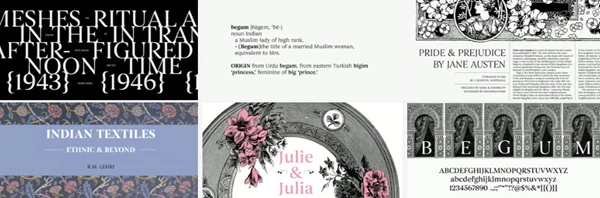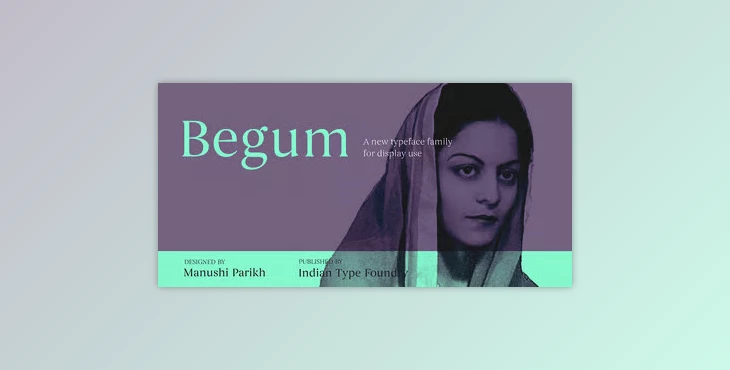
The Begum Font Family is a Latin display serif that has a modern appeal, but one that very much embraces old-school Anglo-Dutch typefaces. It looks great and reminds me of Caslon, Fleischmann, and Times, among many others. Use the font family for anything where you want to enhance shorter text pieces, like a multi-line intro for an article or a product box and label, as this family will stand out with its unique differences.
In addition, the font family supports Devanagari and Tamil, making it an excellent choice for Latin-based font requirements. Whether you're in the publishing industry or the product branding and packaging sector, the Begum Font Family is a solid choice for modern takes on older family inspirations. It will work well for you and maintain legibility in both short and long passages in English, Devanagari, Tamil, and any other language it supports.